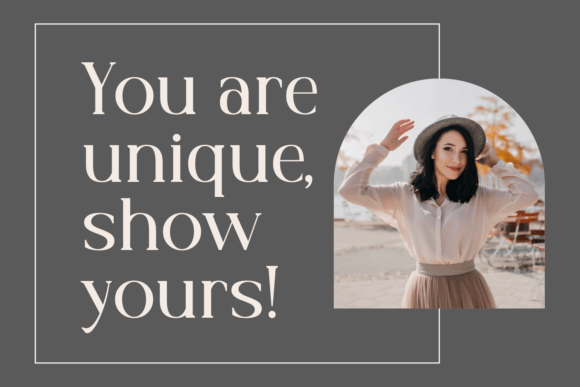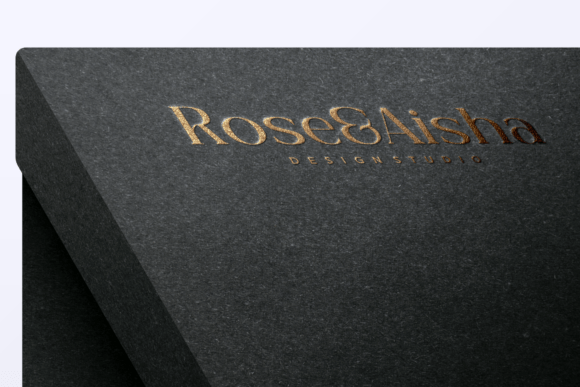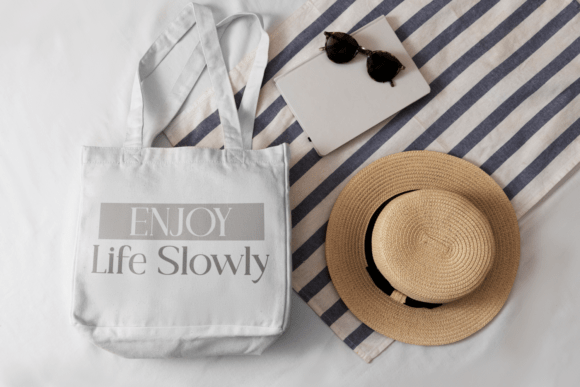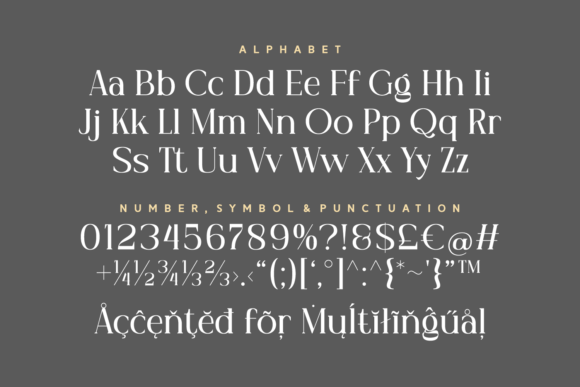
Introducing Dare Appear: The Elegant Serif Font for High-End Branding and Editorial Use
In the world of typography, a font can make or break the visual identity of a brand. For designers and crafters looking for a sophisticated and chic font to elevate their high-end branding and editorial projects, look no further than Dare Appear. This elegant serif font is designed to exude confidence and luxury, making it the perfect choice for those who want to make a statement.
A Font that Embodies Confidence and Sophistication
Dare Appear is a bold, yet refined font that is sure to turn heads. Its elegant serif lines and classic proportions evoke a sense of timeless sophistication, while its confident and assertive character makes it perfect for high-end branding and editorial use. Whether you’re working on a luxury fashion brand, a high-end magazine, or a bespoke craft project, Dare Appear is the ideal font to help you convey your message in style.
Key Features of Dare Appear
- Elegant Serif Lines: Dare Appear’s serif lines are carefully crafted to provide a sense of refinement and sophistication, making it perfect for high-end branding and editorial projects.
- Classic Proportions: The font’s classic proportions ensure that it remains legible and versatile, making it suitable for a wide range of applications.
- Bold and Confident Character: Dare Appear’s bold and confident character makes it perfect for headlines, titles, and other high-impact applications.
- Highly Versatile: The font is highly versatile, making it suitable for use in a variety of contexts, from luxury fashion branding to high-end editorial projects.
Dare Appear is a font that is specifically designed with designers and crafters in mind. Its elegant and sophisticated character makes it perfect for a wide range of creative projects, from bespoke crafts to high-end branding and editorial use. Whether you’re a professional designer or a crafty hobbyist, Dare Appear is a font that is sure to inspire your creativity and help you to create stunning visual projects.
How to Use Dare Appear
Dare Appear can be used in a variety of contexts, from digital projects to print materials. Here are a few ideas for how to use this elegant serif font:
- Luxury Fashion Branding: Use Dare Appear to create bold and eye-catching headlines and titles for luxury fashion brands.
- High-End Editorial Projects: The font is perfect for use in high-end editorial projects, such as fashion magazines and bespoke publications.
- Bespoke Crafts: Dare Appear can be used to add a touch of elegance and sophistication to bespoke crafts, such as handmade jewelry and luxury textiles.
- Digital Projects: The font can be used in digital projects, such as website headers and social media graphics.
In conclusion, Dare Appear is an elegant serif font that is perfect for designers and crafters looking for a sophisticated and chic font to elevate their high-end branding and editorial projects. Its bold and confident character, combined with its elegant serif lines and classic proportions, make it the ideal choice for those who want to make a statement. With its versatility and wide range of applications, Dare Appear is a font that is sure to inspire creativity and help you to create stunning visual projects.
A promotional image introducing “Dare Appear,” an elegant serif font. A sophisticated, high-fashion photograph of a woman complements the font’s bold, chic, and confident character, making it ideal for high-end branding and editorial use.